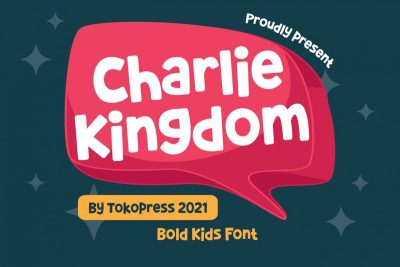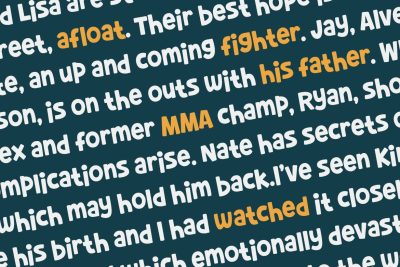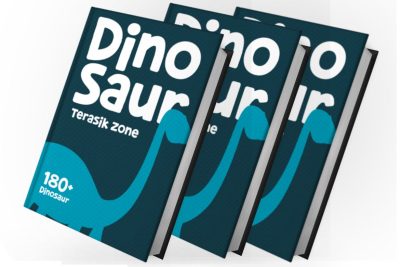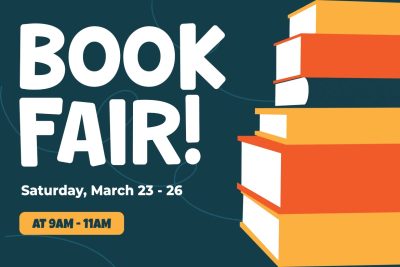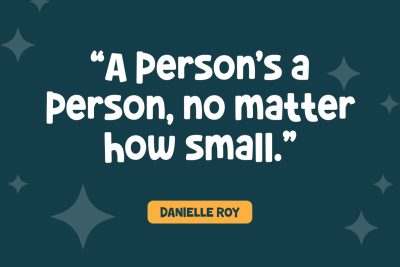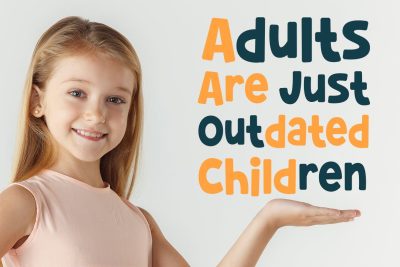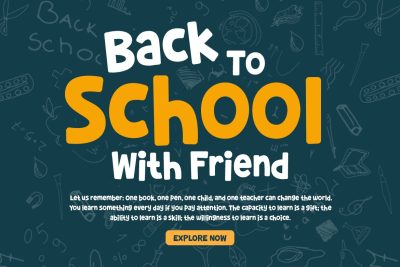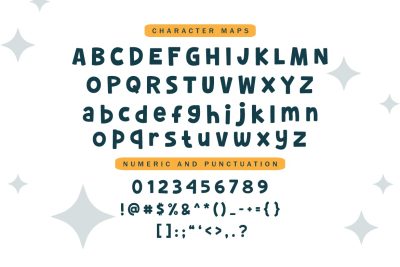
Charlie Kingdom
Kids Font Charlie Kingdom is a bold, cheerful typeface that effortlessly brings a lively personality to any project. With its thick, rounded letters, this font easily captures the attention of young audiences. Additionally, its playful curves and chunky shapes make it both fun and highly readable. This unique style allows it to stand out while keeping the text clear and accessible. As a result, Kids Font Charlie Kingdom creates a joyful and friendly vibe, making it perfect for designs that need warmth and charm.
In addition to its engaging look, this font is also very versatile. The bold style works well for headings, titles, and short text that need to make an impact. Furthermore, the simple shapes allow it to adapt easily across different media, from print to digital formats. Its straightforward design ensures readability, even at smaller sizes. Meanwhile, the playful style keeps it visually appealing for children. For designers looking to add fun and excitement to their work, this font is an ideal choice.
Kids Font Charlie Kingdom Perfect For
Charlie Kingdom is especially suited for educators, children’s content creators, and brands targeting young audiences. For instance, teachers can use this font to create eye-catching classroom materials, posters, and resources that instantly grab students’ attention. Its bold, friendly style makes learning materials feel approachable, encouraging students to engage with content.
Moreover, children’s book authors, illustrators, and publishers will benefit from Kids Font Charlie Kingdom. Its whimsical design is perfect for storybooks, activity books, and other children’s literature where a memorable look is essential. This font brings stories to life, adding a magical touch to the reading experience.
Additionally, this font is ideal for brands focused on products for kids and families. Toy companies, kids’ clothing brands, and other family-friendly businesses can use it to build a warm, approachable brand image. It’s perfect for packaging, branding materials, and ads that need a playful yet trustworthy vibe.
Lastly, marketers and designers working on social media graphics or event posters will find Kids Font Charlie Kingdom ideal. Its bold personality and playful design convey excitement and joy, setting the right tone for family-friendly gatherings focused on fun and connection.
The bold but playful sans serif shape will bring a lot of joy to kids hearts. Suit perfectly for kids market, online games, etc.